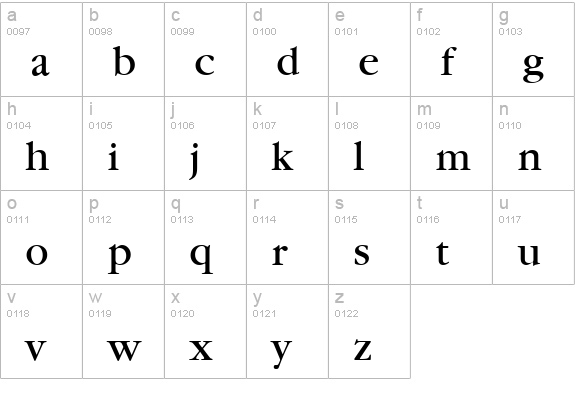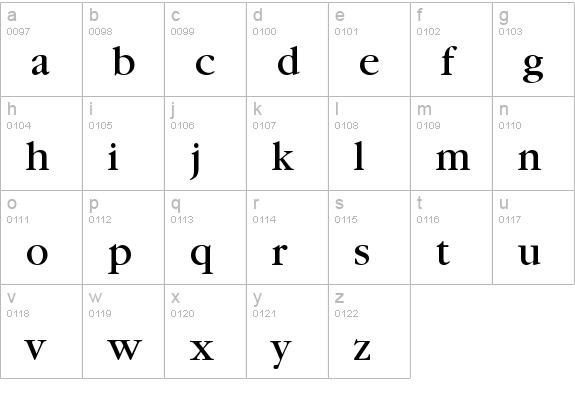
Garfeld-Nova Font Details
Garfeld-Nova is a modern and stylish font that exudes elegance and sophistication. With its sleek lines and distinctive curves, this versatile typeface is perfect for a wide range of design projects, from branding to editorial layouts. The Garfeld-Nova font is free for personal and commercial use, making it a valuable addition to any designer's toolkit. You can easily download this font for free at FontsMarket.com, where you'll find a wide selection of high-quality fonts to enhance your creative projects. Elevate your designs with the timeless appeal of Garfeld-Nova and make a lasting impression on your audience.